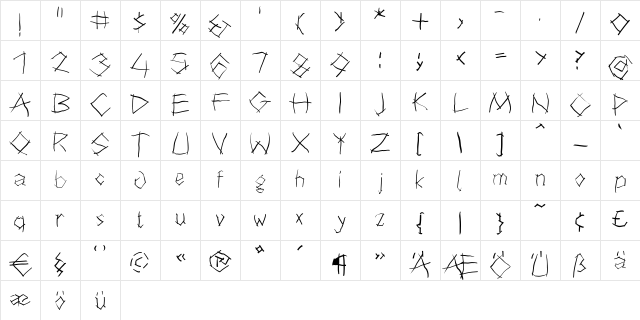
Twiggy Regular Free Font
Twiggy Regular
Design Context for Twiggy
Twiggy is a composed and adaptable typeface that performs quietly and consistently across a wide range of design contexts.